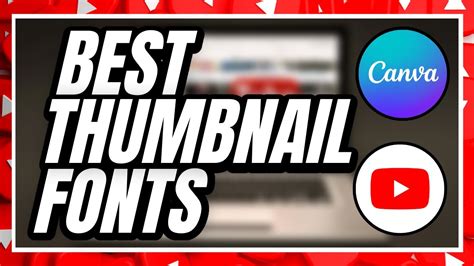
Good Fonts For Thumbnails. Web looking for thumbnail fonts? Web one of the most popular fonts for thumbnail text, impact is a simple but bold font for youtube videos.
Web looking for thumbnail fonts? Select a font that aligns with the overarching. Click to find the best 34 free fonts in the thumbnail style. It is a free font and can. Web one of the most popular fonts for thumbnail text, impact is a simple but bold font for youtube videos. Every font is free to download! Web how to choose the best fonts for thumbnails?
Web looking for thumbnail fonts? Every font is free to download! Click to find the best 34 free fonts in the thumbnail style. It is a free font and can. Web looking for thumbnail fonts? Web how to choose the best fonts for thumbnails? Web one of the most popular fonts for thumbnail text, impact is a simple but bold font for youtube videos. Select a font that aligns with the overarching.